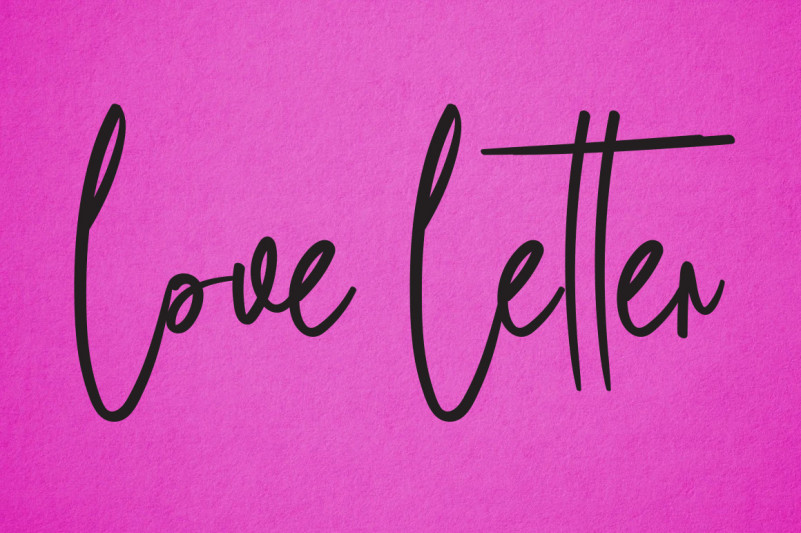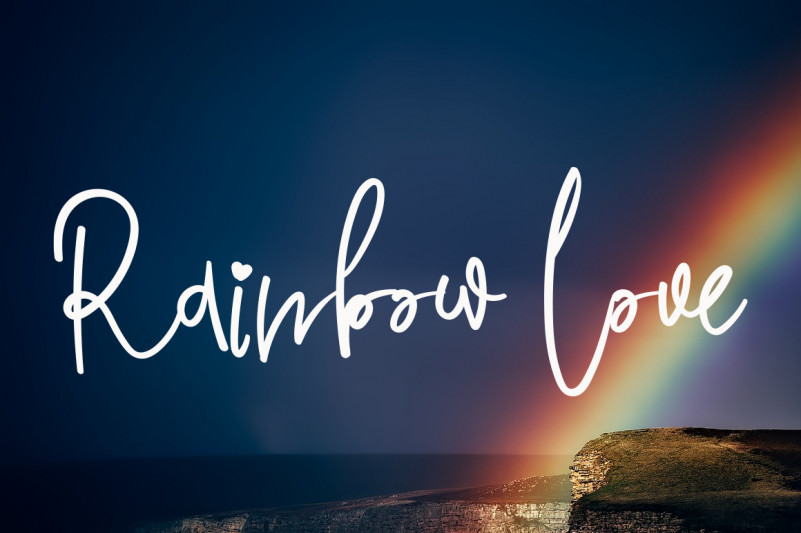
Simple Flowers Font
Simple Flowers Handwritten Font
This is a delicate and charming handwritten font. It has beautiful, cursive, and well-balanced characters that will look fantastic in almost all of your elegant creations!